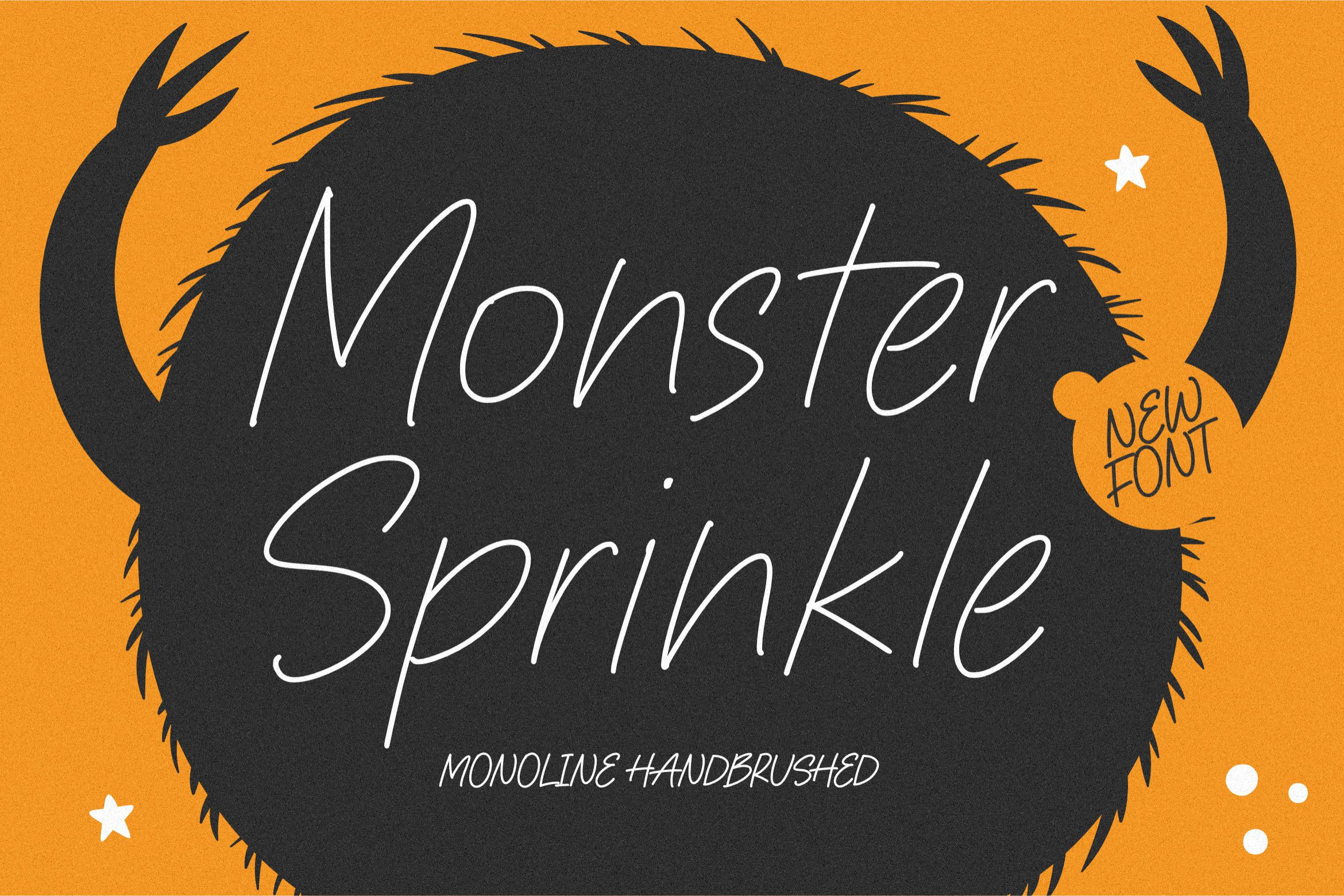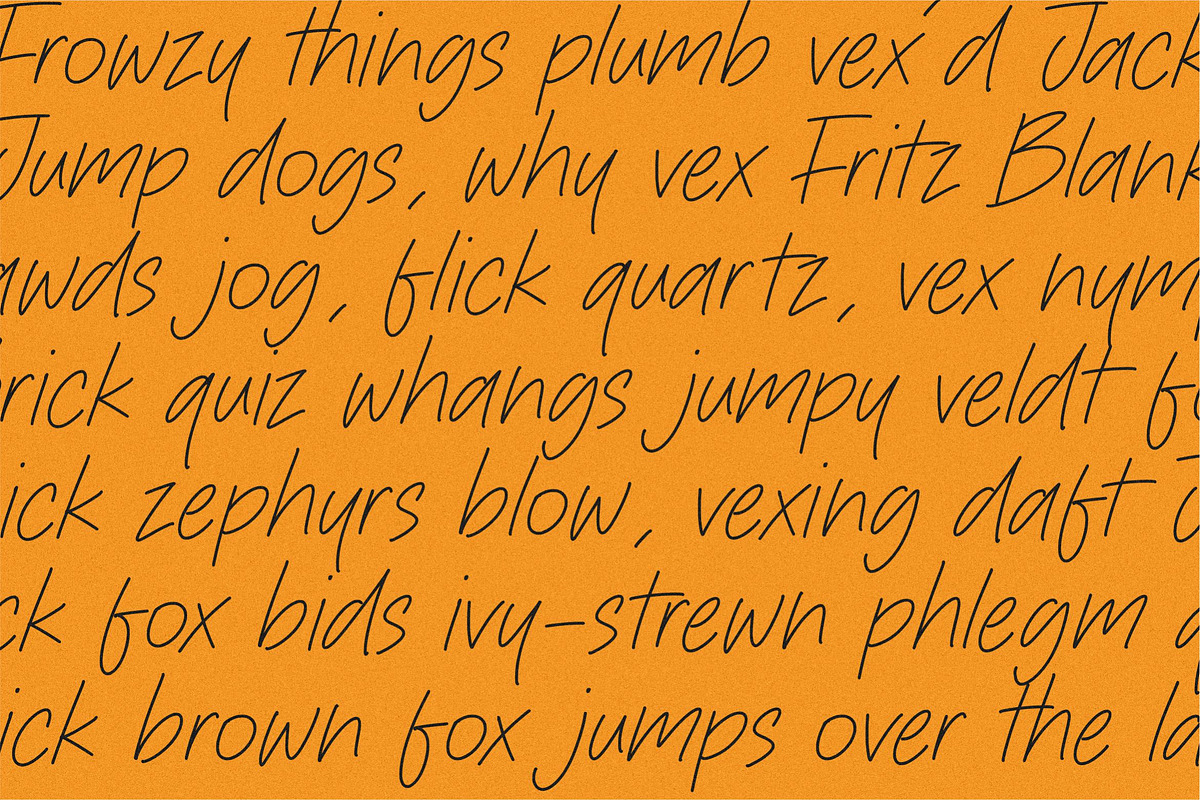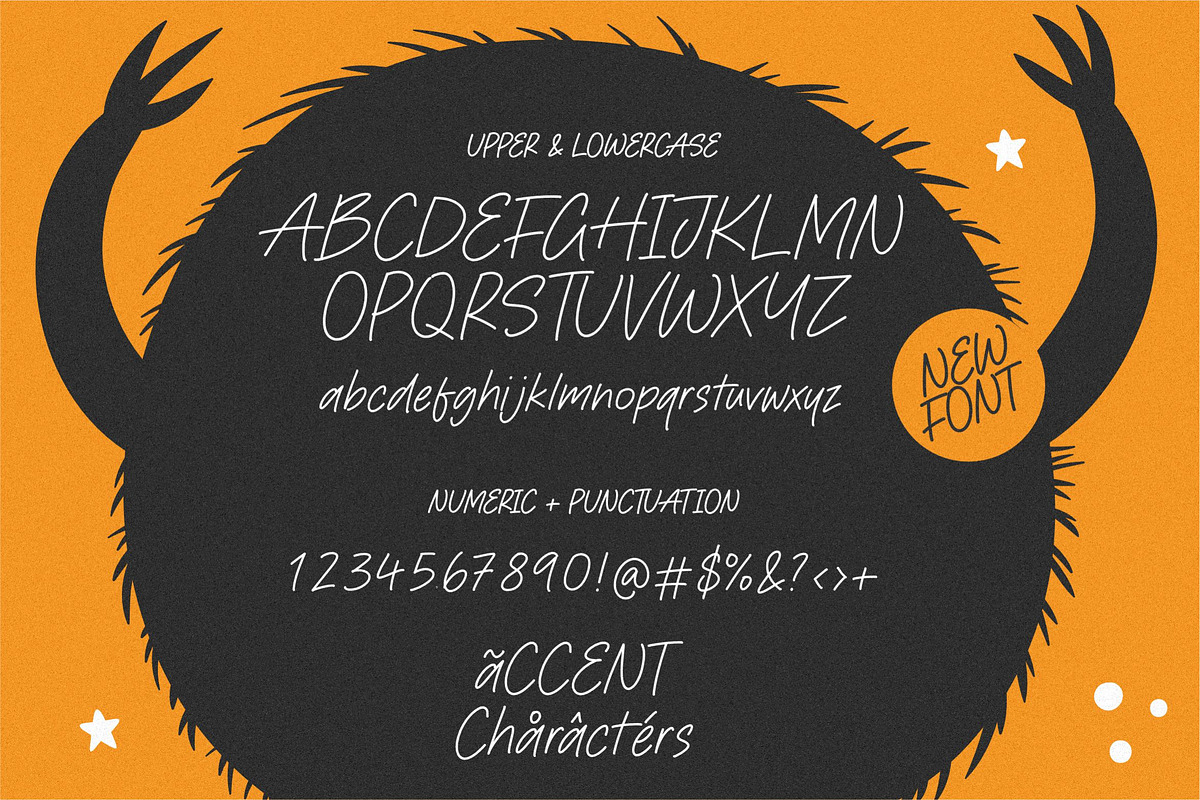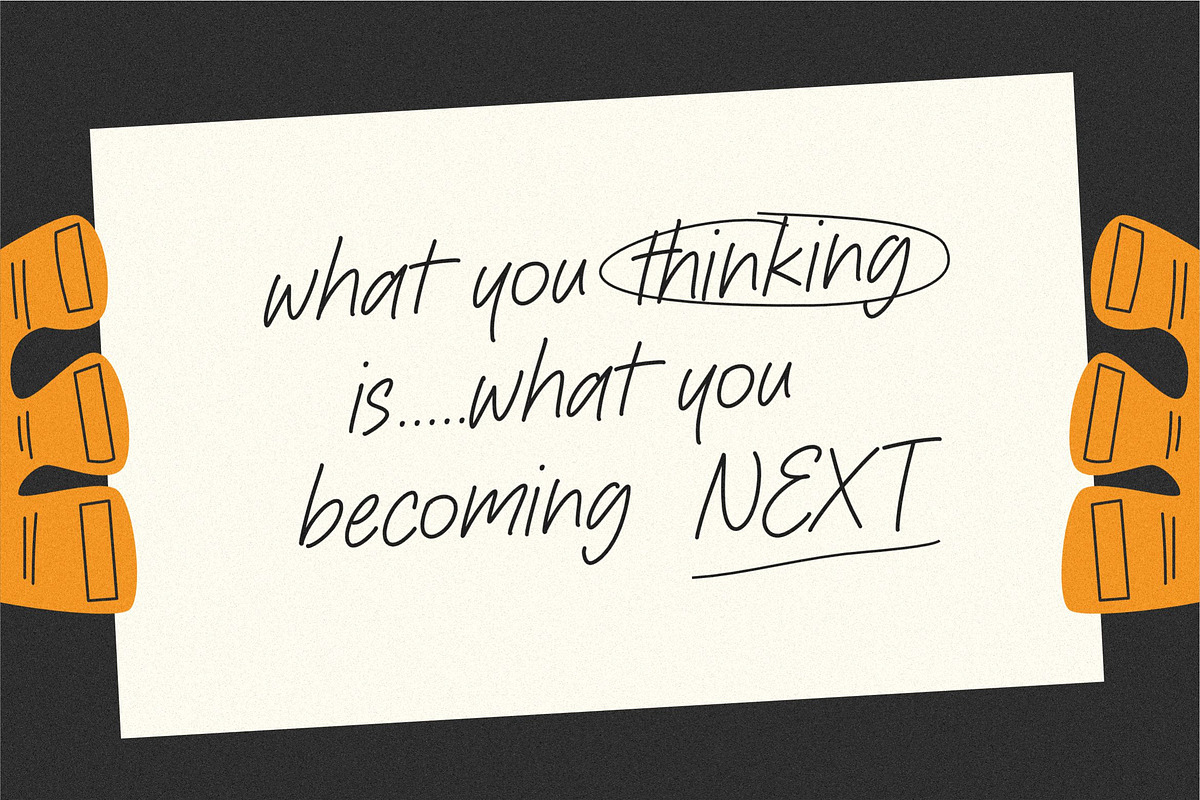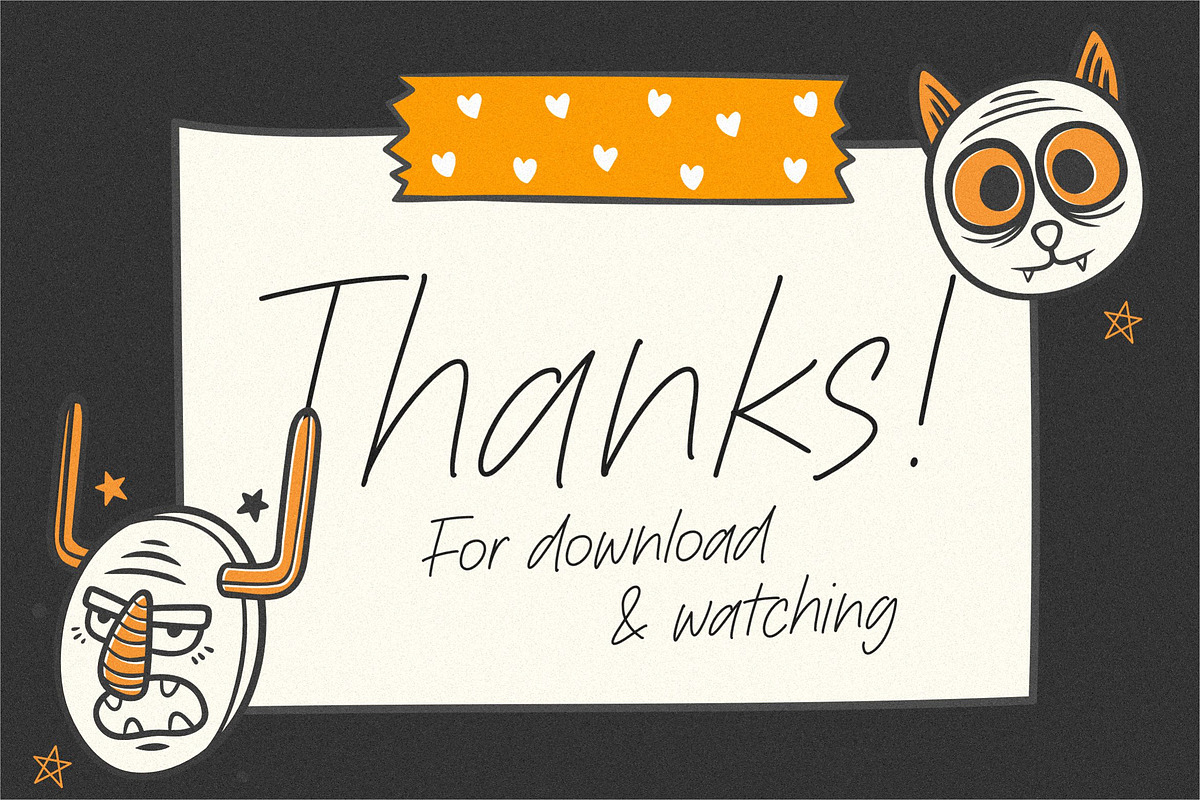
Monster Sprinkle Font
Monster Sprinkle is a monoline handbrushed font that's perfect for adding a personal touch to your design projects! With its natural, organic feel and unique character.
Crafted with care and attention to detail, this font is incredibly versatile and can be used for a range of design projects, including logos, branding, invitations, and more. Its modern, handwritten style gives it a unique character that's sure to make an impact.
- also multilingual support